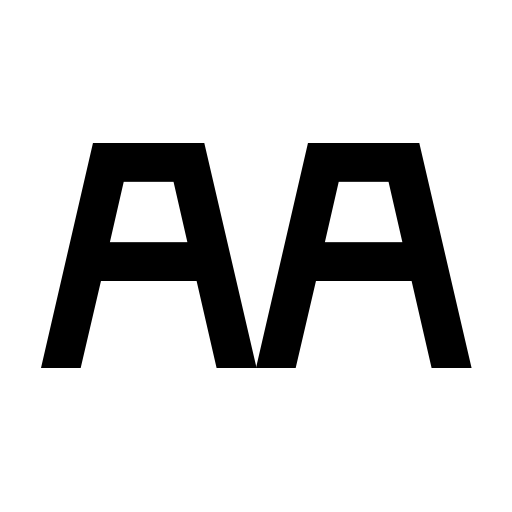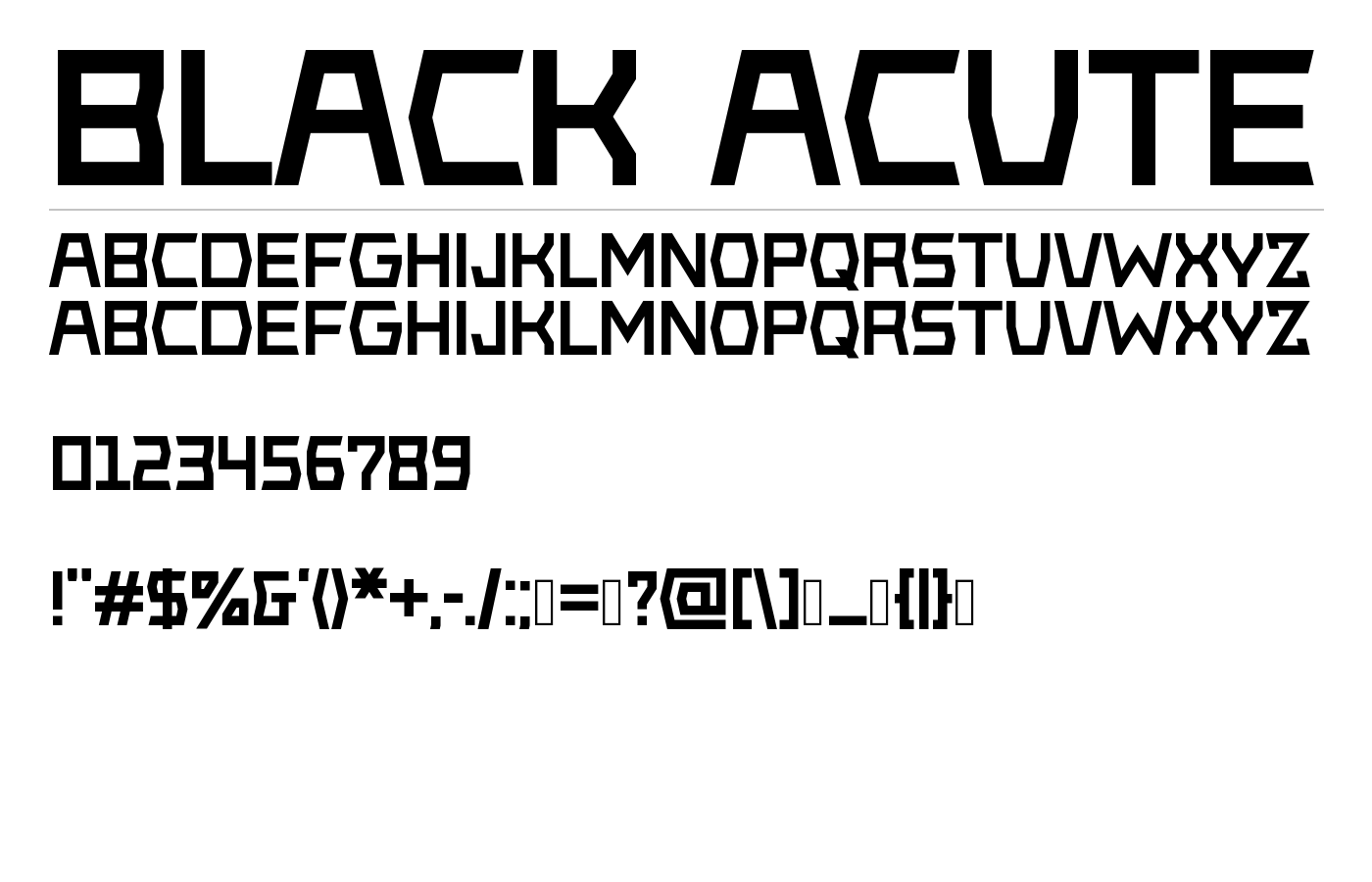
Black Acute is a bold, geometric sans serif font characterized by its sharp angled cuts and unusually acute strokes, giving it a futuristic and dynamic appearance. With its strong, compact letterforms and uniform stroke weight, it offers a modern and technical vibe that works well for impactful headlines, branding, or tech-related designs where a distinctive, edgy look is desired. This font’s unique shapes and clear readability also make it suitable for logos and digital displays that require a contemporary, cutting-edge style.
Black Acute Font
About Black Acute Font